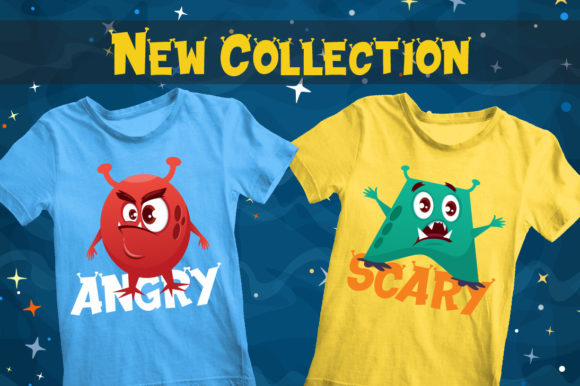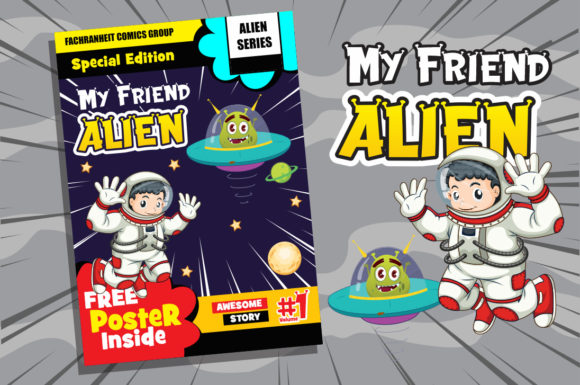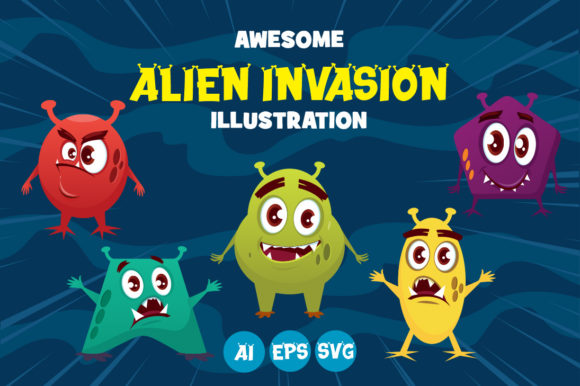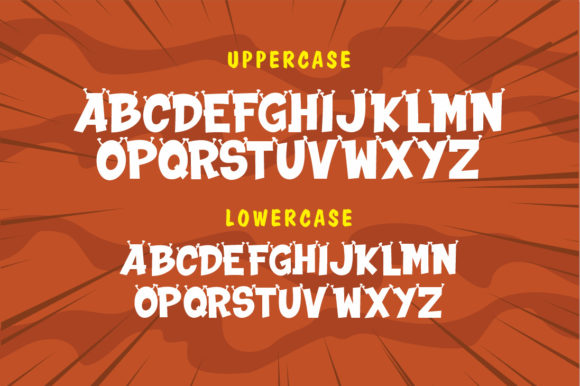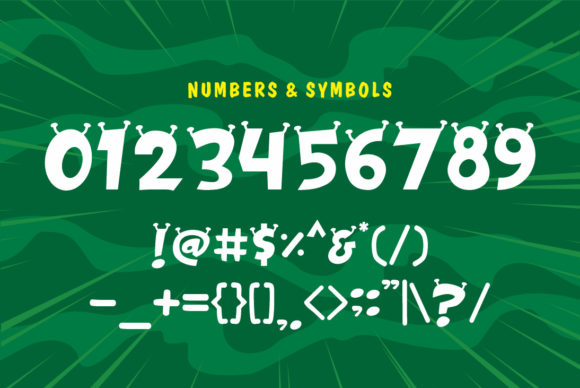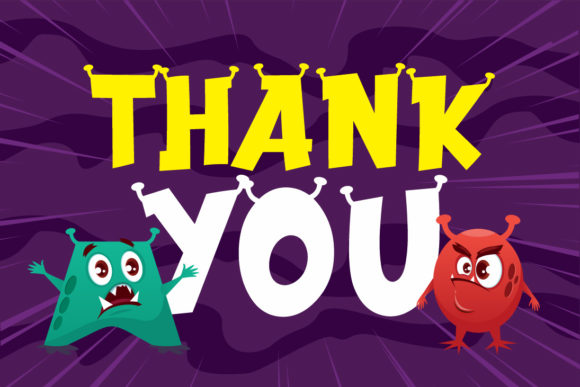
The Alien Invasion Font: A Fun and Playful Addition to Your Designs
Have you ever been working on a design project, and suddenly, you’re stuck on finding the perfect font? I recall a recent experience where I was tasked with creating a fun and quirky design for a client’s t-shirt. The brief was simple: make it cute, make it playful, and make it out of this world! That’s when I stumbled upon the Alien Invasion font, and it was love at first sight.
So, what makes the Alien Invasion font so special? Let’s dive into the good stuff! 🤩
- ✨ Unique and quirky design that’s perfect for adding a playful touch to your designs
- ✅ Comes with 5 awesome illustrations that can be used to enhance your projects
- ✅ Perfect for use in quotes, logotype, badges, labels, packaging, t-shirts, and more
- ✅ Easy to read and works well in various design contexts
Now, let’s talk about some minor quirks ⚠️:
- 🤔 Limited use in formal or professional design contexts (unless you’re going for a quirky, offbeat vibe)
- ⚠️ Some users may find the font a bit too playful or childish for their taste
The Backstory Behind the Alien Invasion Font
Ever wondered what inspired the creation of the Alien Invasion font? According to the designer, the font was created as a fun side project during a sleepless night, fueled by a passion for space and typography. The result is a unique and quirky font that’s perfect for adding a playful touch to your designs.
- Q: What type of designs is the Alien Invasion font best suited for?
- A: The Alien Invasion font is perfect for designs that require a playful and quirky touch, such as t-shirts, posters, and social media graphics.